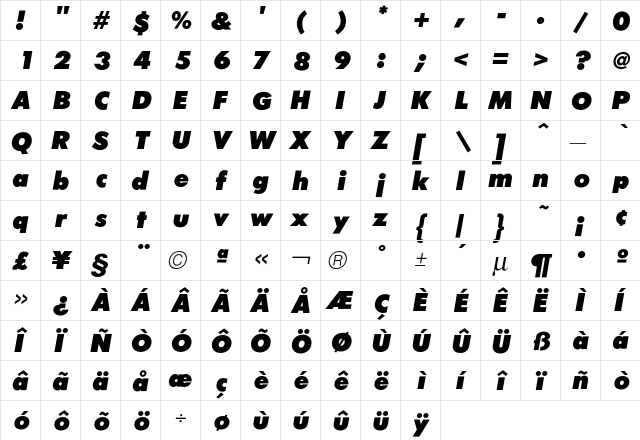
FuturaICG XBoldOblique
Design Context for FuturaICG Typeface
FuturaICG has a distinctly futuristic character, with geometric precision and clean angles that feel at home in technology, gaming, and sci-fi contexts. Its italic angle brings a sense of urgency and motion to the letterforms. The heavy weight commands attention and anchors typographic hierarchies.